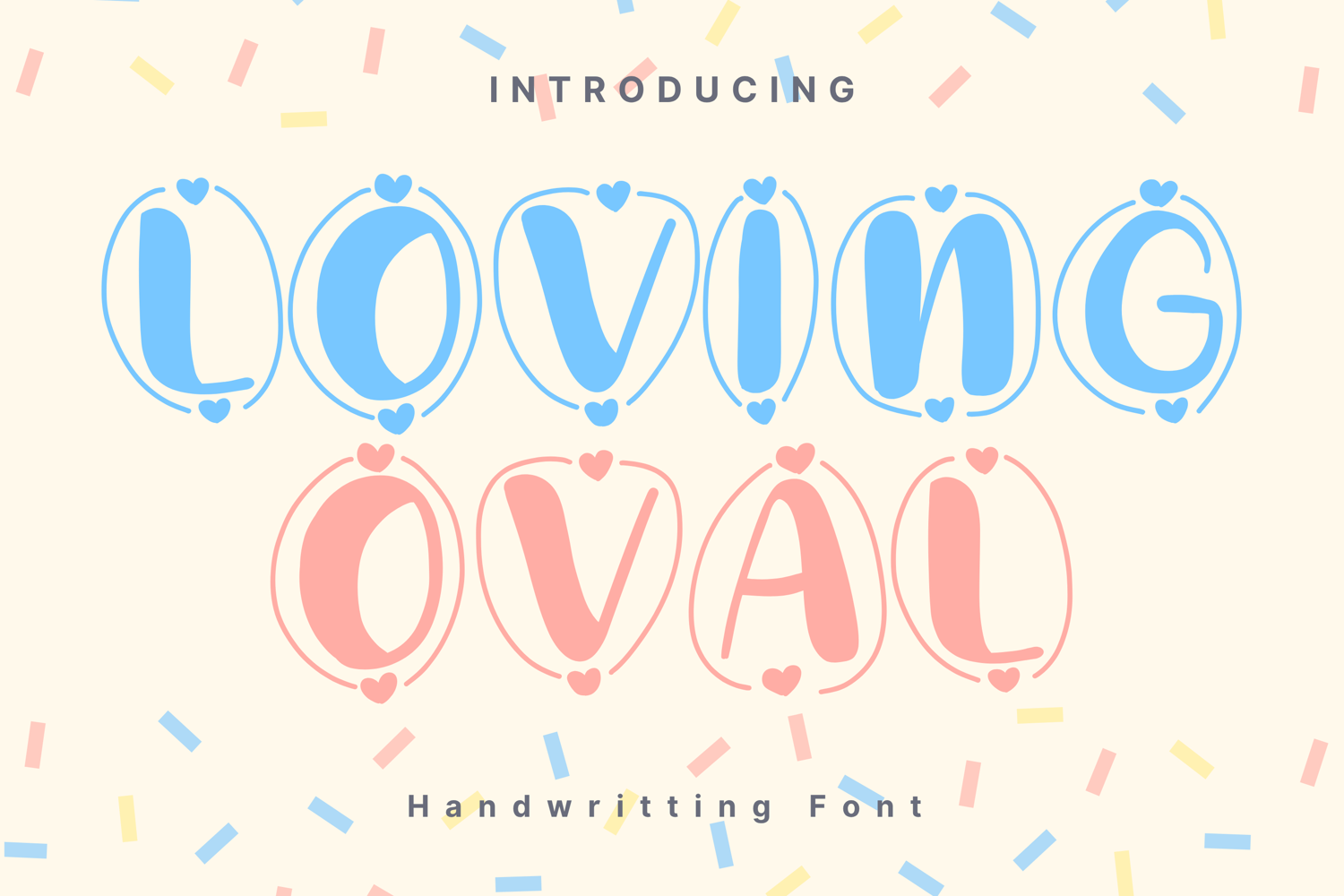
Loving Oval Style
Loving-Oval
Loving Oval Script is a bold, playful display font where each letter is framed by an oval outline adorned with tiny heart details. The combination of rounded strokes and heart embellishments creates a charming, affectionate style perfect for Valentine’s Day projects, wedding invitations, romantic quotes, greeting cards, and cute branding. Its unique decorative look adds instant warmth and joy to any design.